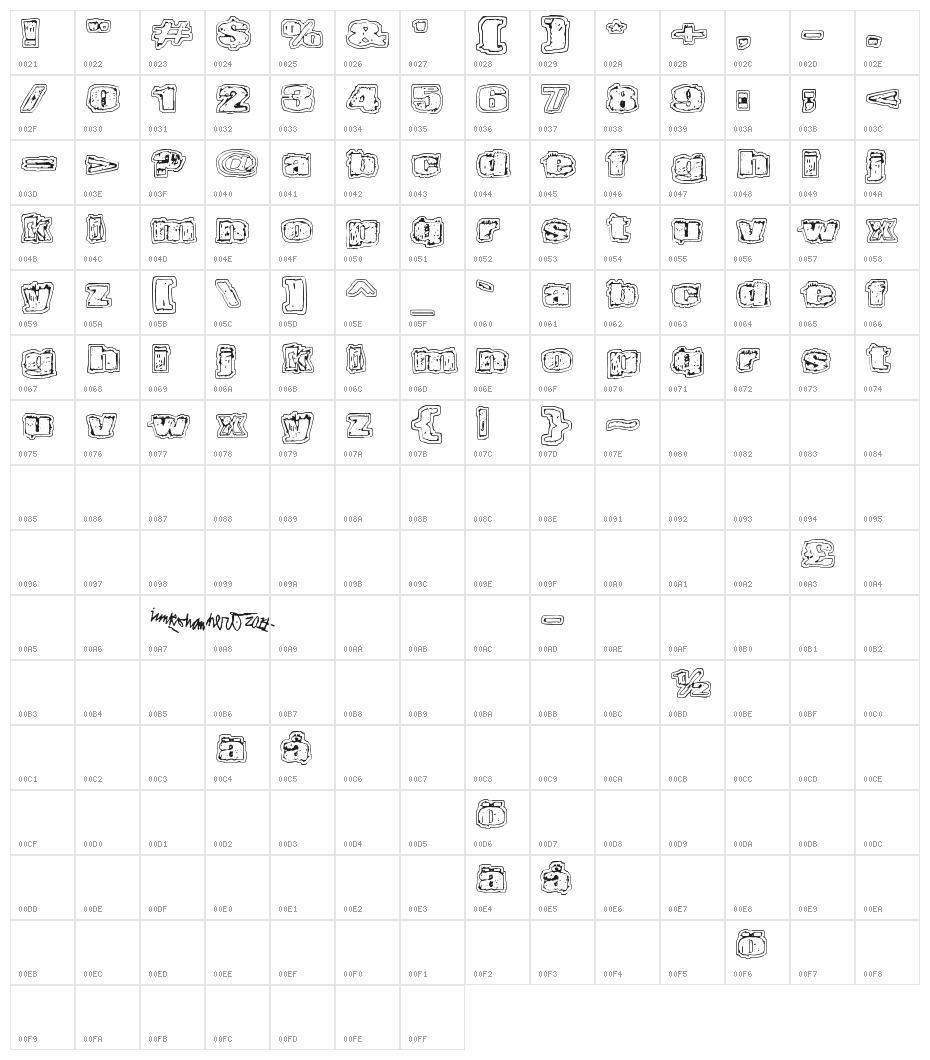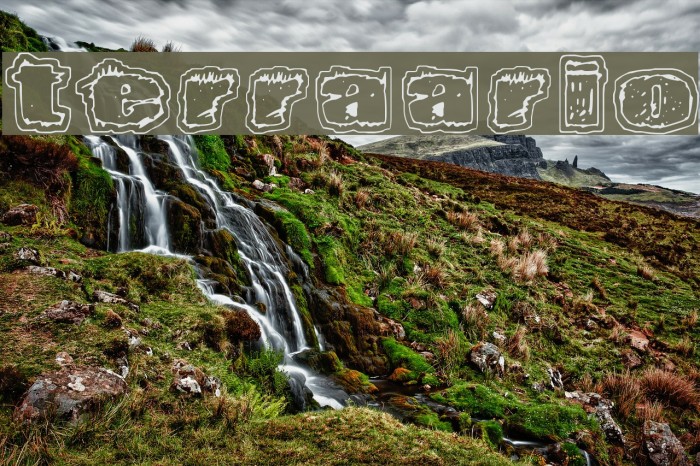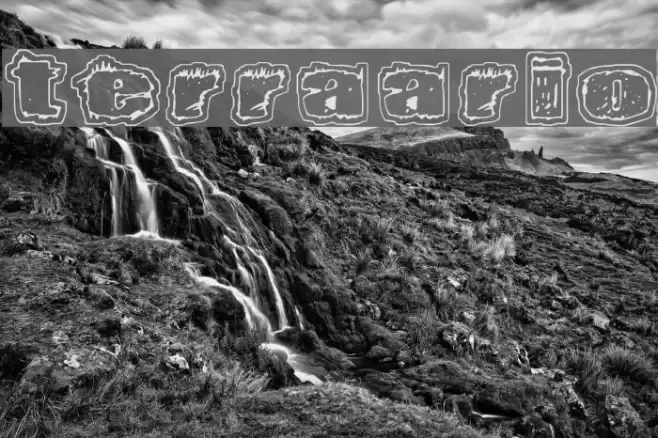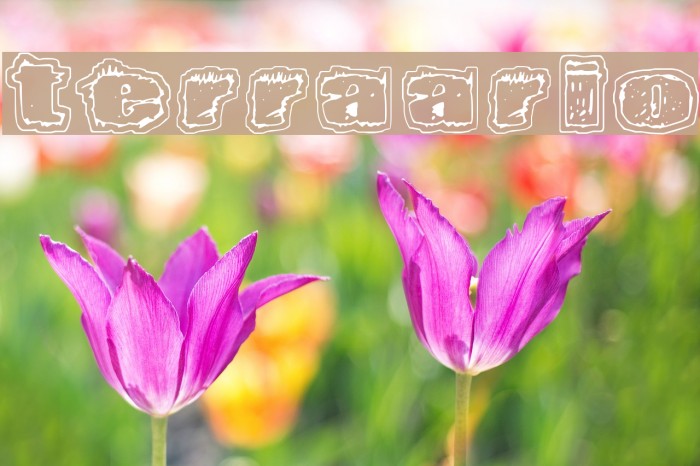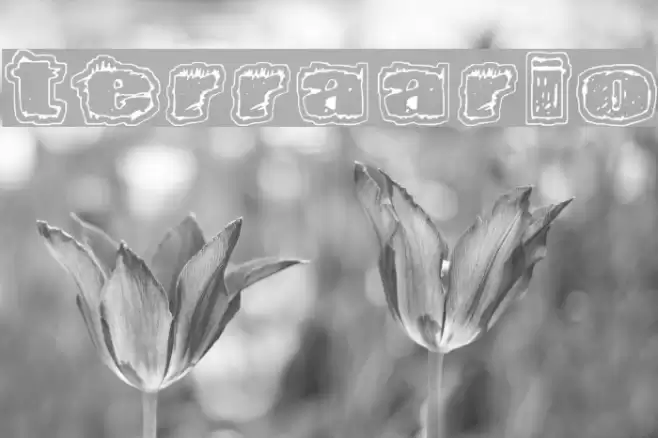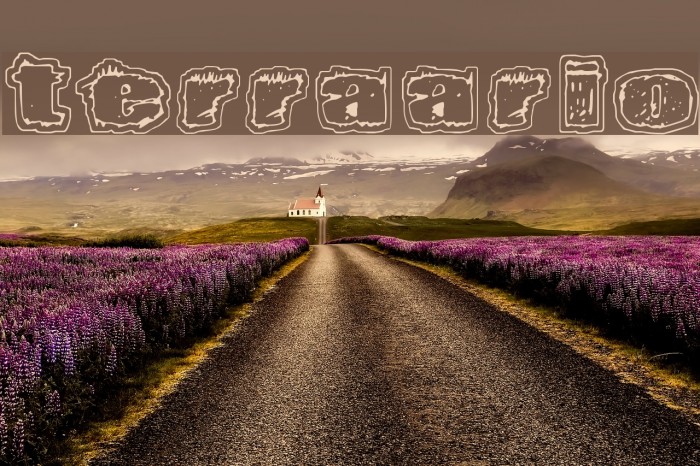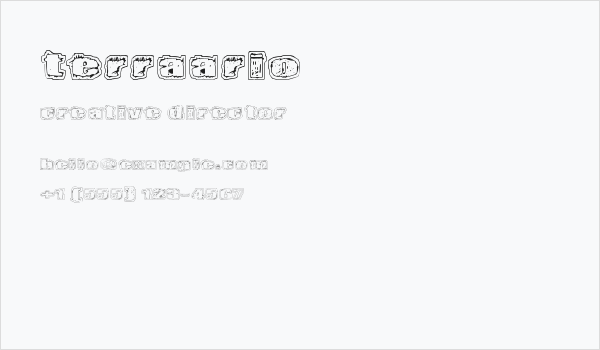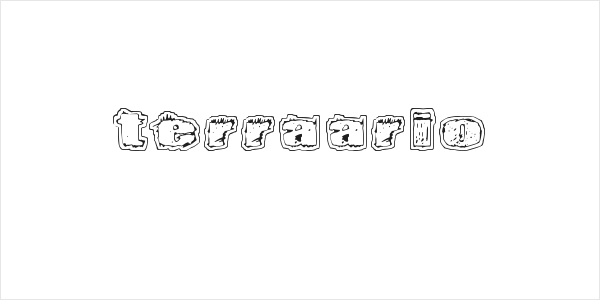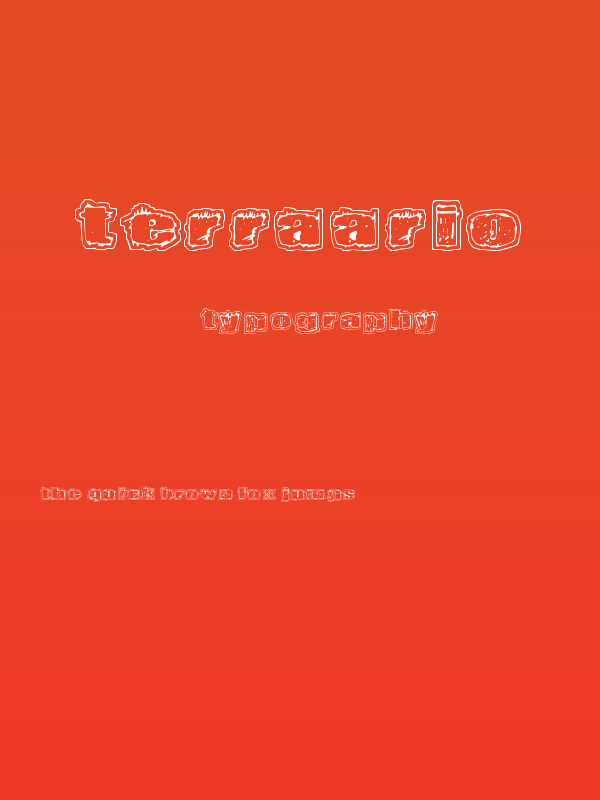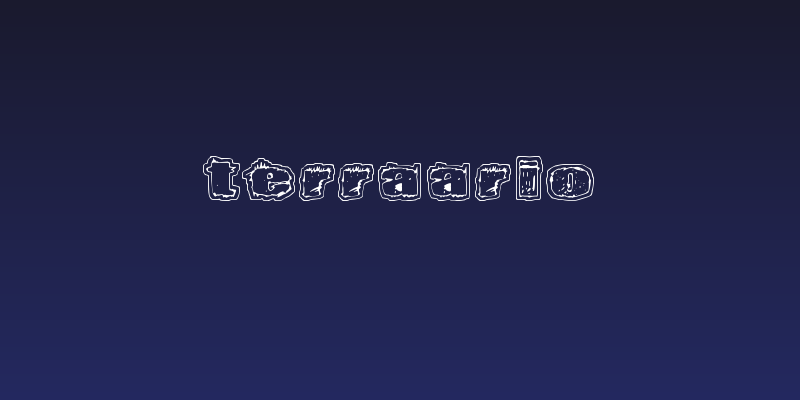
Terraario Font
Terraario Description
This font features a rugged, hand-drawn style with a textured appearance that mimics the look of rough sketches or doodles. Each character is outlined with irregular, jagged edges, giving it a playful and artistic feel. The letters are bold and prominent, with a slightly uneven baseline that adds to the casual, informal aesthetic. The numbers and special characters follow the same design, ensuring consistency across all glyphs. This font's unique style makes it stand out, perfect for projects that require a creative and unconventional touch.
| Proposed Projects | Ideal for artistic projects, children's books, posters, and creative branding. |